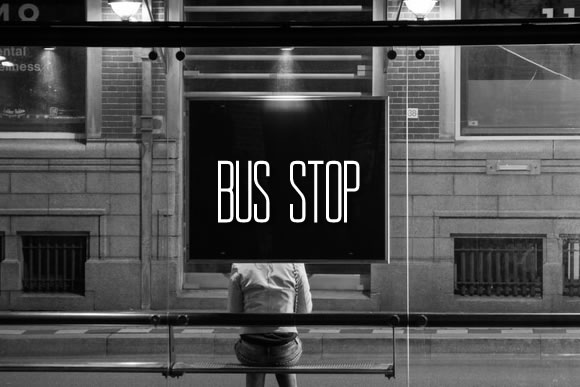
Welcome to the captivating world of Bus Stop Font, a sans serif masterpiece that will transform your digital creations into works of art.
As you embark on your journey through our curated collection, prepare to be captivated by the stunning Bus Stop Font. This modern and sophisticated font family will empower you to express your individuality and make a lasting impression on your audience.
Step into a realm of endless creative possibilities as you explore the versatility of Bus Stop Font. Whether you're crafting eye-catching headlines, compelling marketing materials, or simply adding a touch of elegance to your personal projects, this font will effortlessly elevate your designs.
Indulge in the beauty of Bus Stop Font's clean lines, crisp edges, and subtle curves. Each character has been meticulously crafted to provide optimum readability and visual impact, ensuring that your messages will resonate with clarity and distinction.
Let Bus Stop Font be your companion as you navigate the vast landscape of digital communication. Its unwavering consistency and timeless appeal will lend a touch of sophistication to every project you undertake.